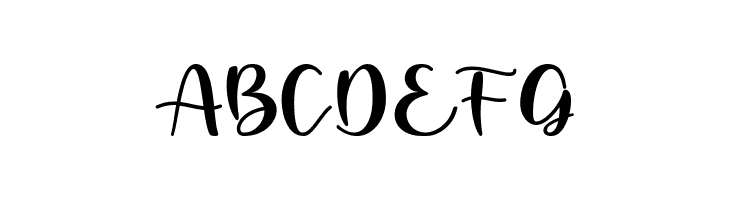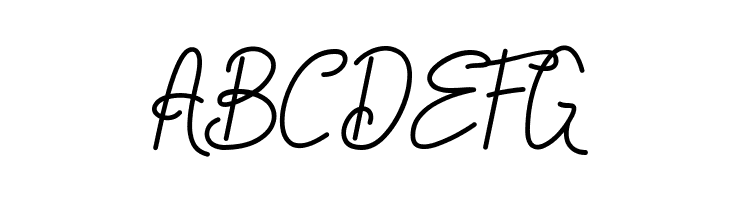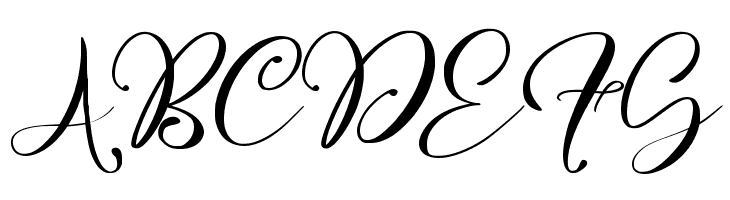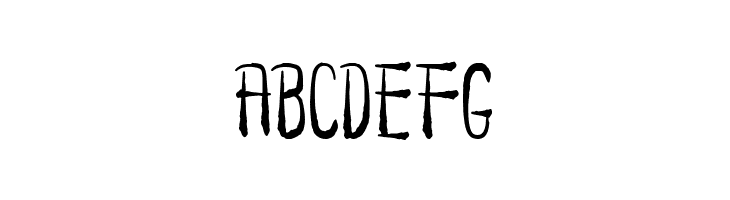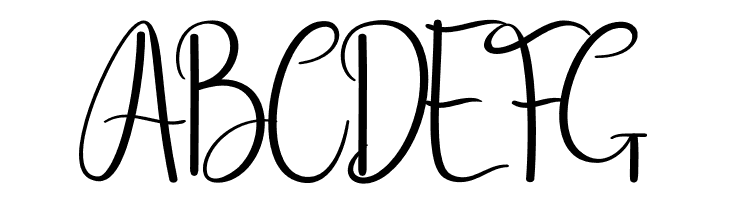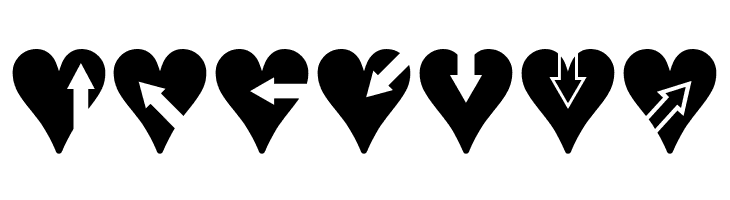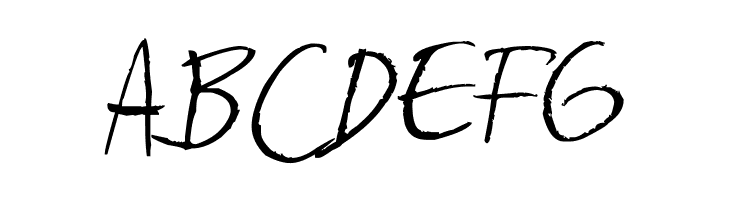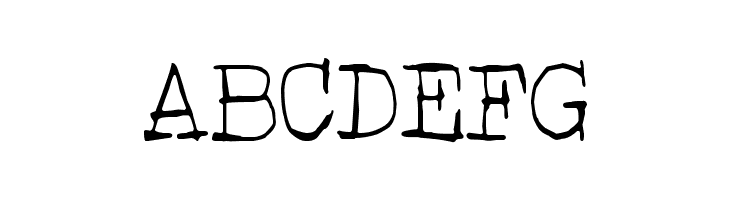
• Hearts for 3D FX
• Hearts n Arrows
• Hehku
A playful, hand-drawn font with irregular strokes and a whimsical style.
• Heimeiry
A lively, handwritten script font with fluid, interconnected letters.
• Heina's hurry
A dynamic, brush-style font with an expressive, hand-drawn appearance.
• Hello Austhin
A playful, handwritten script font with dynamic strokes and smooth connections.
• Hello January
( Fonts by Andi Moz )
A playful, handwritten script font with elegant loops and curves.
• Hello Jany
A playful, handwritten font with smooth, rounded edges and a friendly appearance.
• Hello Martha
A modern, elegant script font with flowing, cursive letters and dynamic contrast.
• HELLOISFONT
A dynamic handwritten font with expressive and irregular strokes.